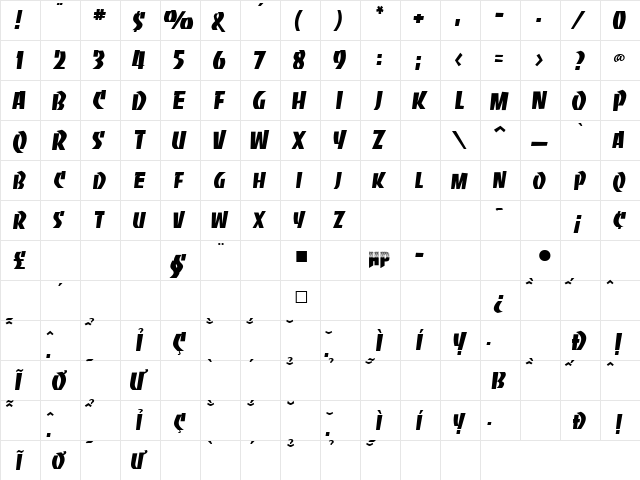
HP-Jamai Bold Italic
Design Context for HP-Jamai Typeface
HP-Jamai offers clean, dependable letterforms without strong stylistic allegiance, making it a practical choice for designers who need flexibility. The dynamic lean of this cut emphasises speed and emphasis in any layout. The heavy weight commands attention and anchors typographic hierarchies.